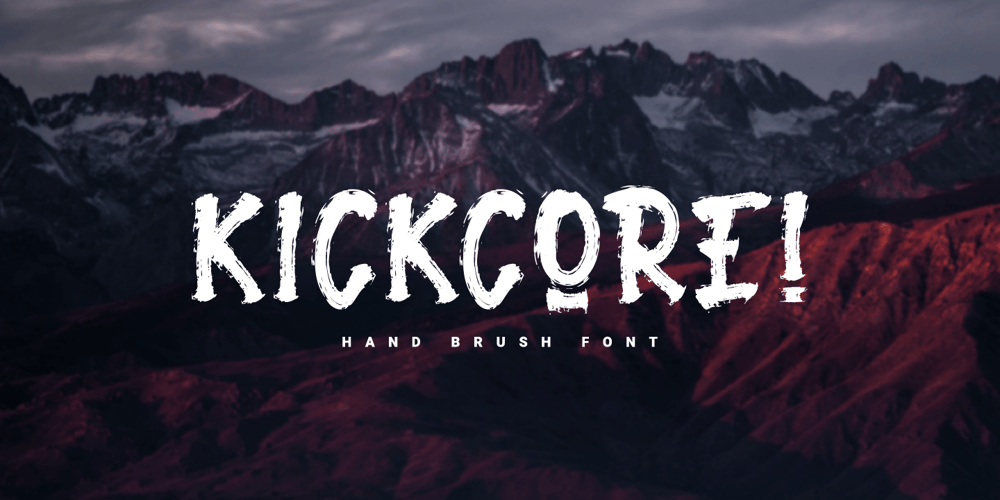
Kickcore Font Family was designed by Prio Nurokhim Aji and published by Prioritype. Kickcore contains 1 styles and family package options. Handwritten brush fonts are very enjoyable to enjoy and look different on every stroke. Especially if you apply it to suitable media such as merchandise, accessories, advertisements, social media posts, packaging or it could be for the main appearance of your video. Well, what are you waiting for a brush! See some of the previews above for reference.Features:-Uppercase-Numeral-Alternate-MultilingualNote: Use a program that supports the Opentype feature and the glyph panel is available, so you can see the various alternative characters available. Examples of programs such as Adobe Illustrator, Corel Draw or Inkscape.